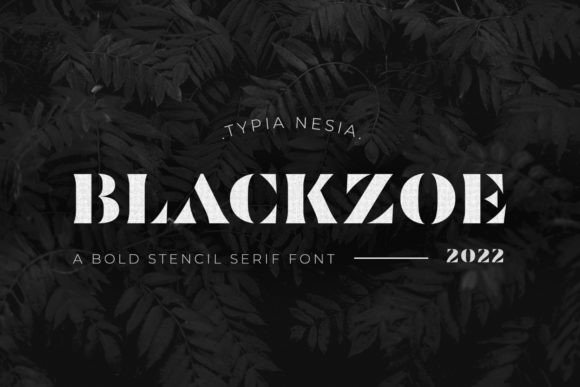
Introducing Blackzoe, the audacious and captivating display font that will revolutionize your creative arsenal. Crafted by the ingenious minds at Typia Nesia, this font exudes boldness and assertiveness, leaving an unforgettable imprint on any design project. Blackzoe isn't just a font; it's an experience that elevates your creations to new heights.
Unleash the power of Blackzoe and watch your designs command attention. Its striking presence will captivate audiences, leaving them in awe of your artistic prowess. Whether you're crafting logos, posters, brochures, or social media graphics, Blackzoe will effortlessly elevate your work, transforming them into masterpieces that resonate with your audience.
Immerse yourself in the versatility of Blackzoe. Its diverse character set, including uppercase and lowercase letters, numerals, and an array of punctuation, ensures seamless integration into any design concept. Express yourself freely, knowing that Blackzoe will effortlessly adapt to your creative vision.
Blackzoe transcends the boundaries of ordinary fonts. It's a statement piece, a declaration of your unique style. With its bold strokes and confident curves, Blackzoe commands attention, making your designs stand out from the crowd. Embrace the power of Blackzoe and let your creativity soar to new heights.